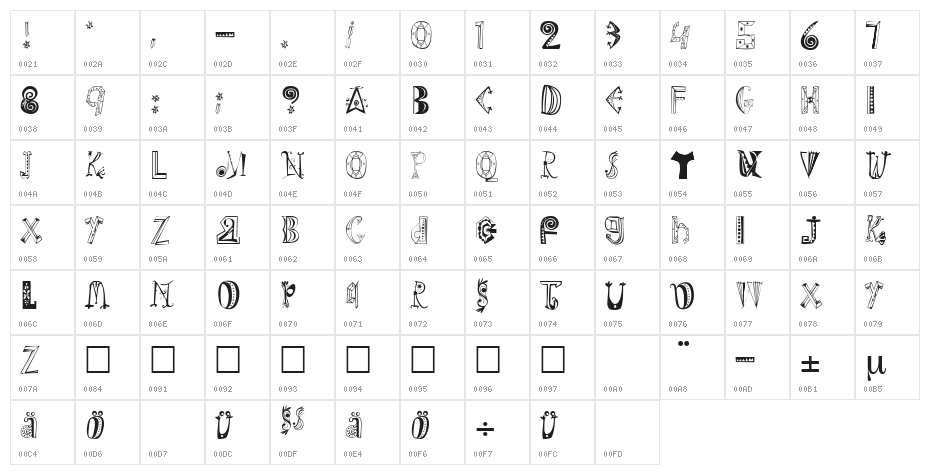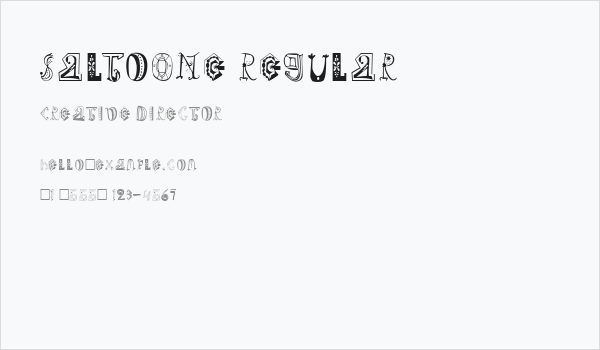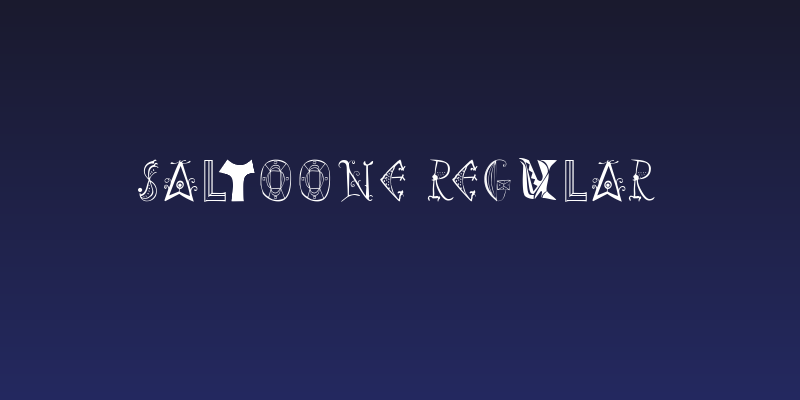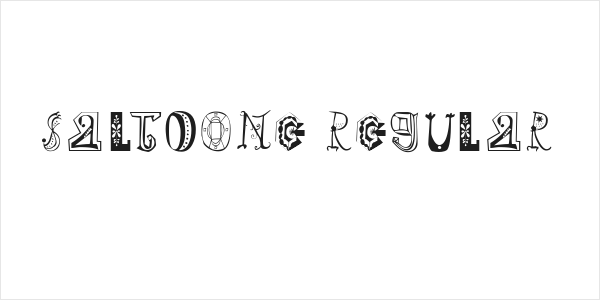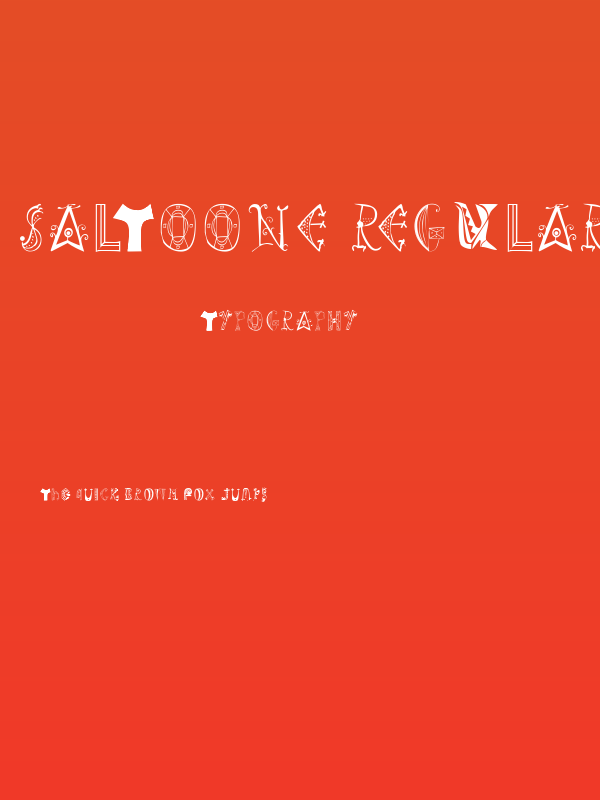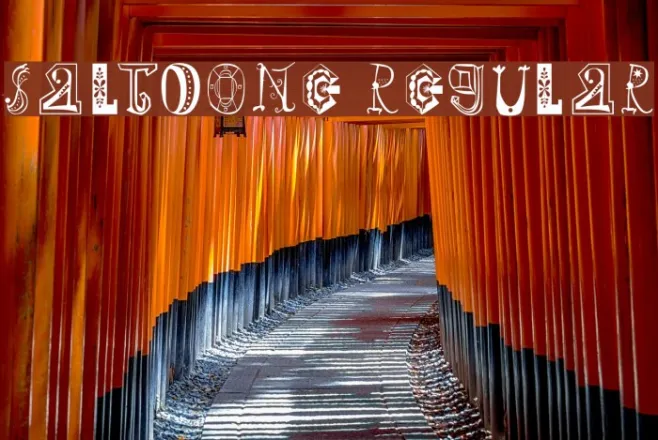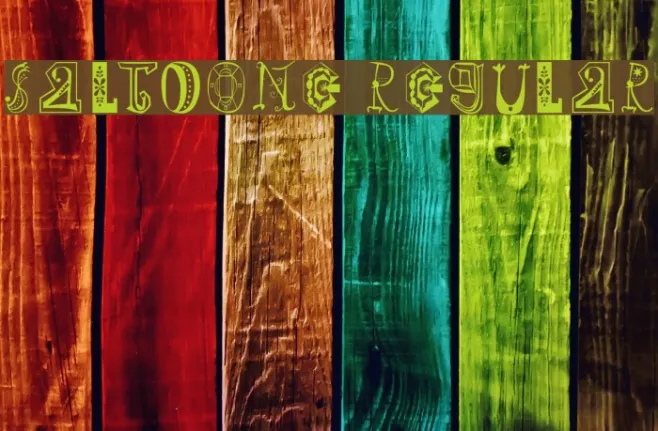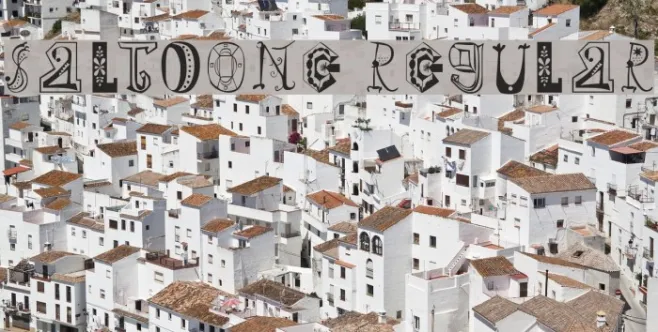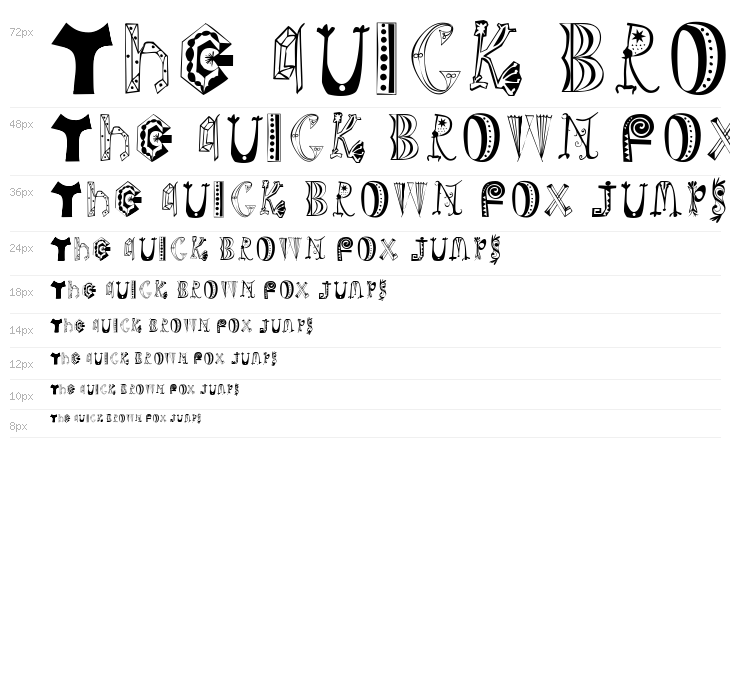
SaltoOne Regular Font
SaltoOne Regular Description
This font is a highly decorative and whimsical typeface, characterized by its playful and artistic design elements. Each letter is uniquely crafted with intricate patterns, shapes, and motifs, making it stand out as a creative and eye-catching choice. The uppercase and lowercase letters exhibit a variety of embellishments, including stars, stripes, dots, and abstract forms, giving the font a dynamic and lively appearance. The numbers and special characters follow the same artistic style, ensuring consistency throughout. This font is perfect for projects that require a bold and imaginative touch, such as posters, invitations, and artistic branding.